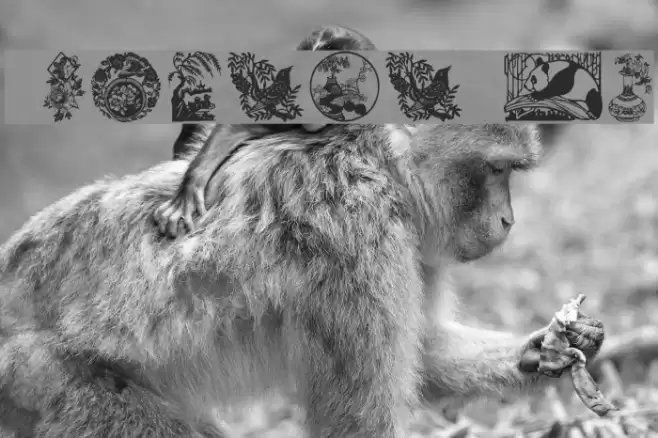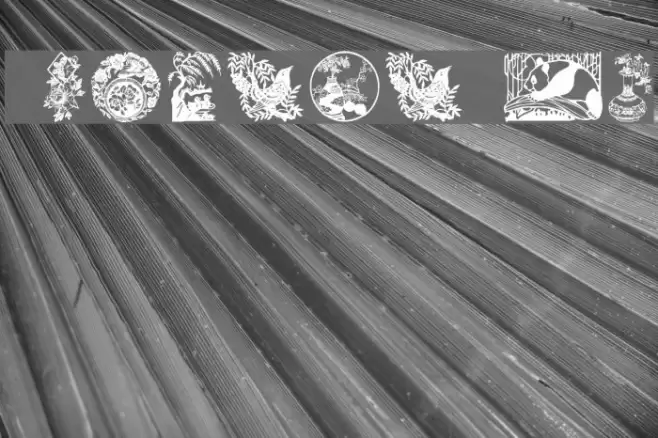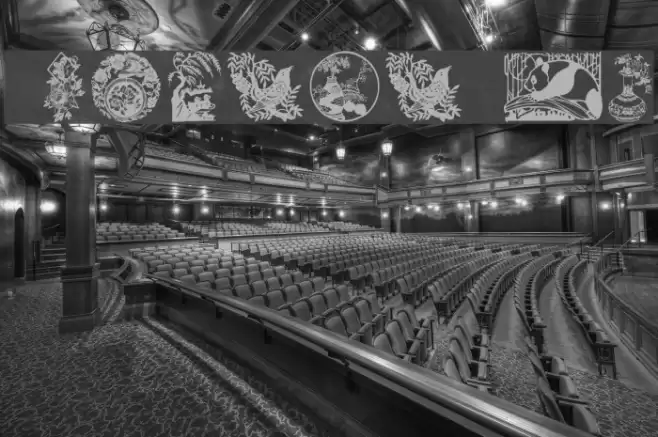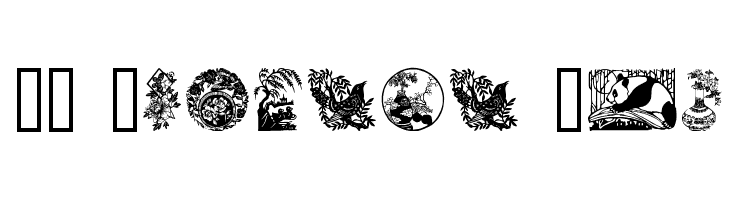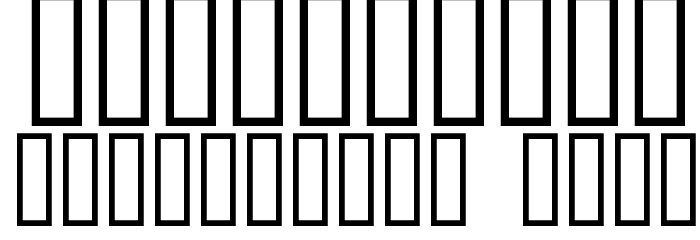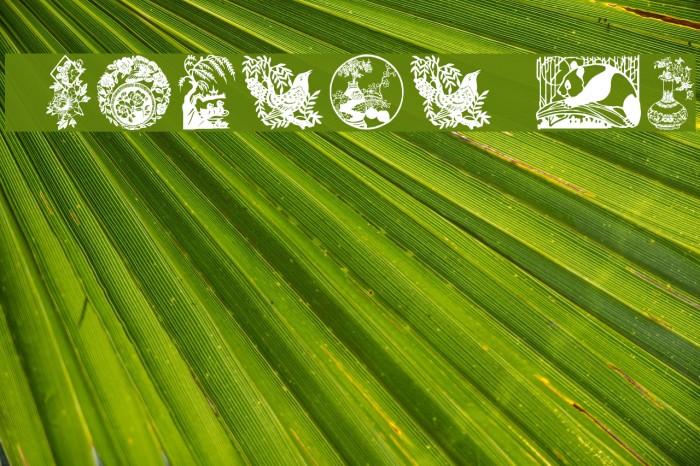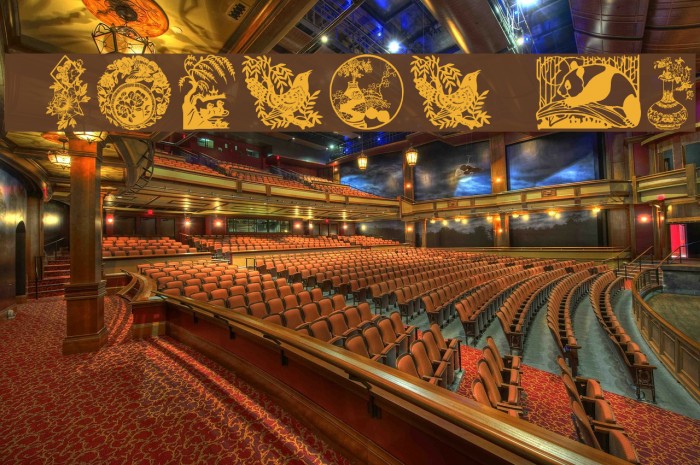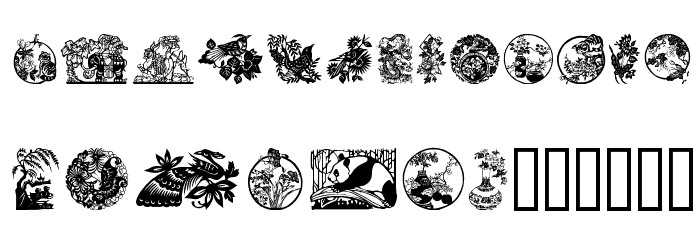
GE Chinese Art Font
GE Chinese Art Description
This set features highly decorative glyphs with intricate Chinese art motifs, including floral, animal, and traditional scene illustrations within circular or rectangular frames. The alphabetic and numeric characters are represented as bold, rectangular outlines, while the special characters showcase detailed, ornamental artwork.
A decorative font combining bold geometric frames with intricate Chinese art illustrations.
- Proposed Projects: Cultural event posters, themed invitations, art exhibitions, decorative headings, branding for Asian-inspired products.
- Overall Style: Decorative, Artistic, Cultural
- Use Case: Logos, Headlines, Posters, Themed Graphics